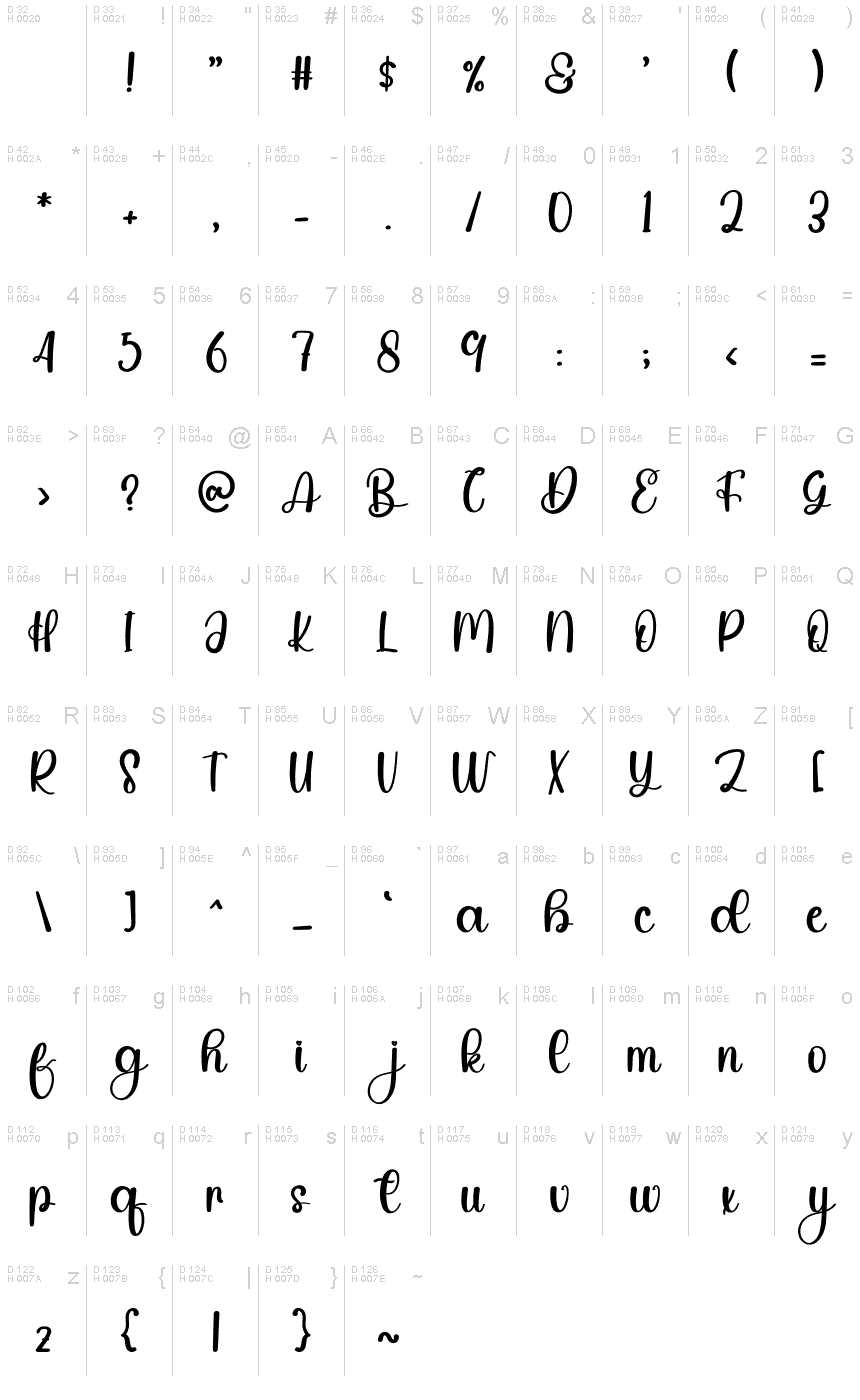
Vintage Rainbow
Vintage Rainbow, designed by PiPi Creative, is a handwritten font that exudes charm and personality. With its flowing, easy-to-read characters, this typeface captures the essence of spontaneous script while maintaining elegant formality. Its aesthetic appeal lies in the delicate balance between classic handwriting and modern flair, making it an ideal choice for invitations, branding, and editorial design.
The style of Vintage Rainbow is reminiscent of a bygone era yet versatile enough to add a personal touch to contemporary projects. Whether it's gracing the pages of a bespoke event invitation or adding character to a boutique's branding materials, this font invites an air of nostalgia that resonates with audiences.
Embrace the unique blend of timeless elegance and casual sophistication with Vintage Rainbow in your next creative endeavor.